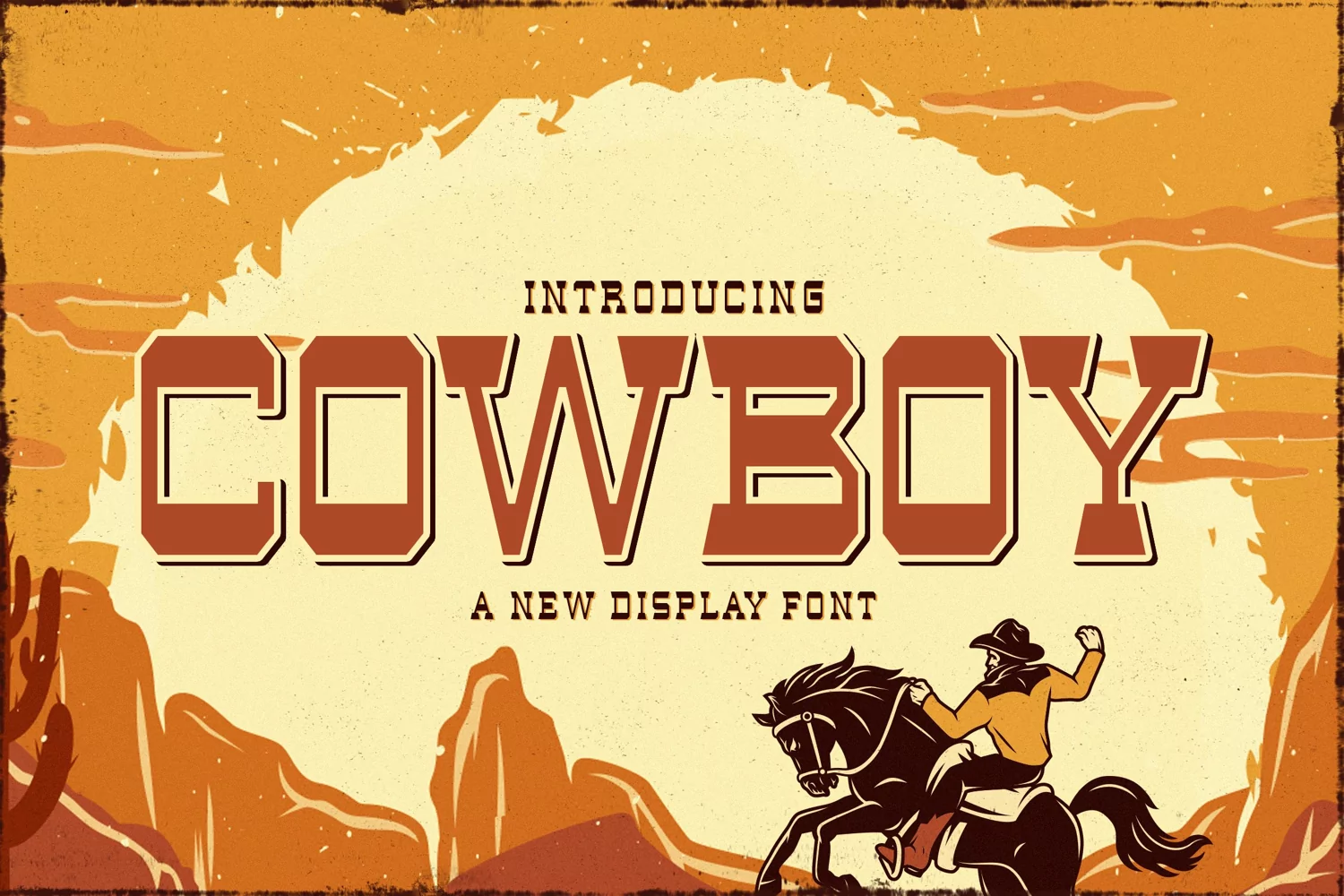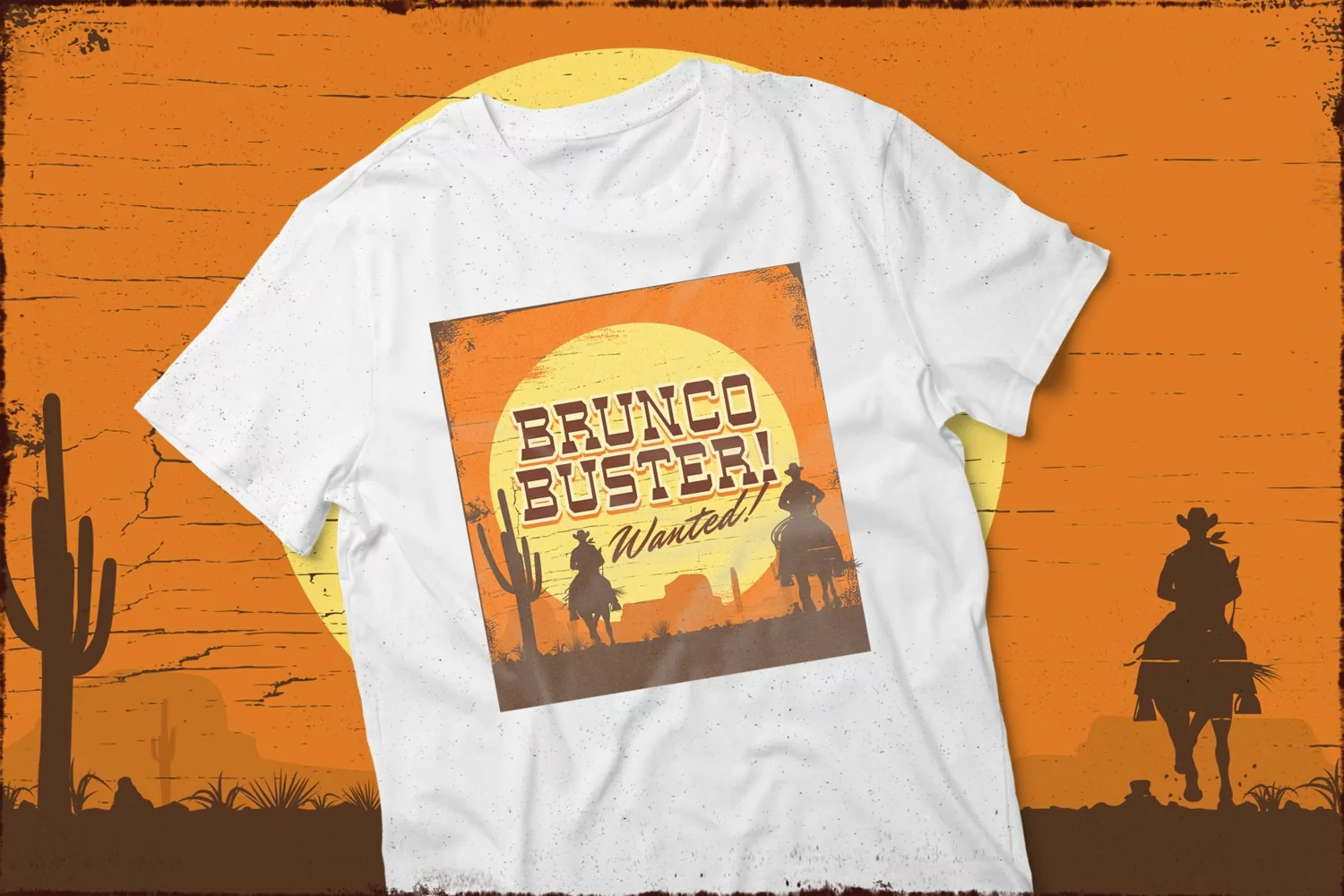
Cowboy is a new display font. Perfect for display, poster, quotes, film, craft needs, book cover, business card, packaging, merchandise, branding, logo, logotype, header, title, and many more.